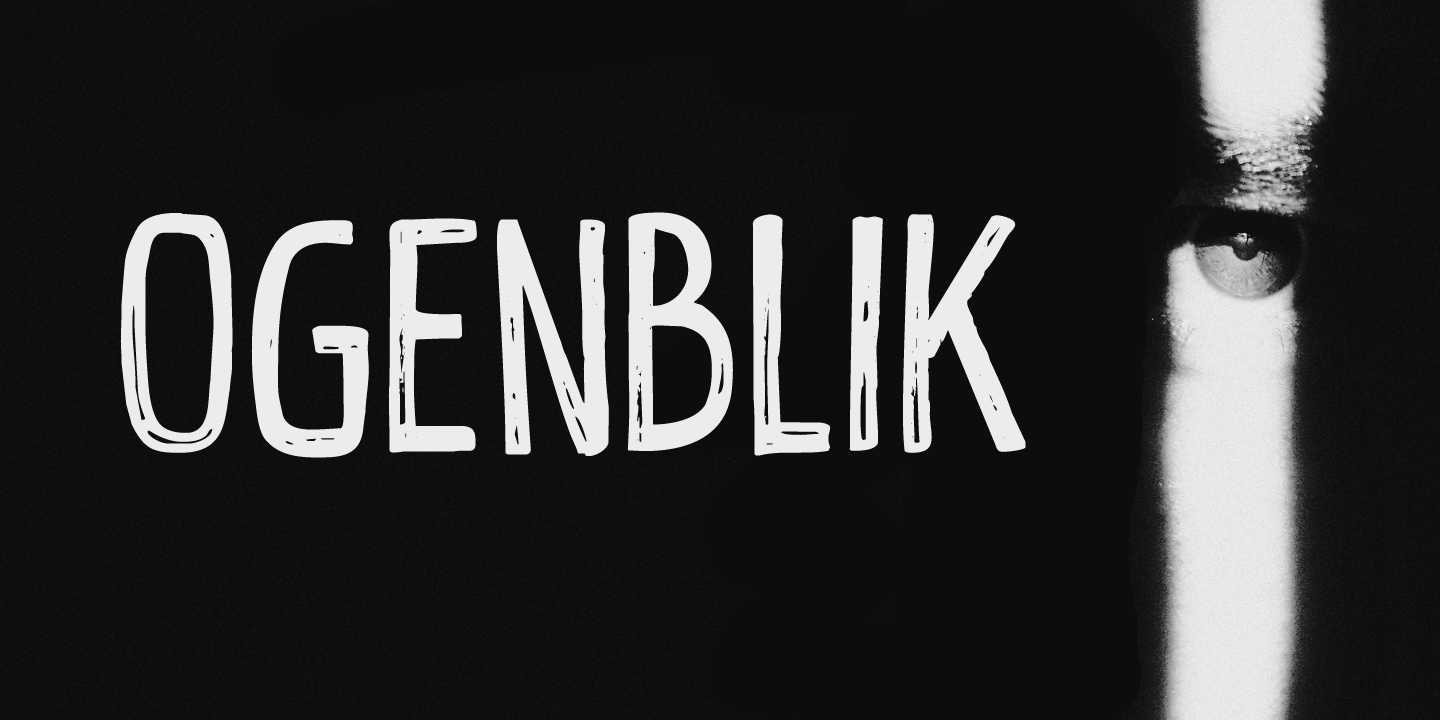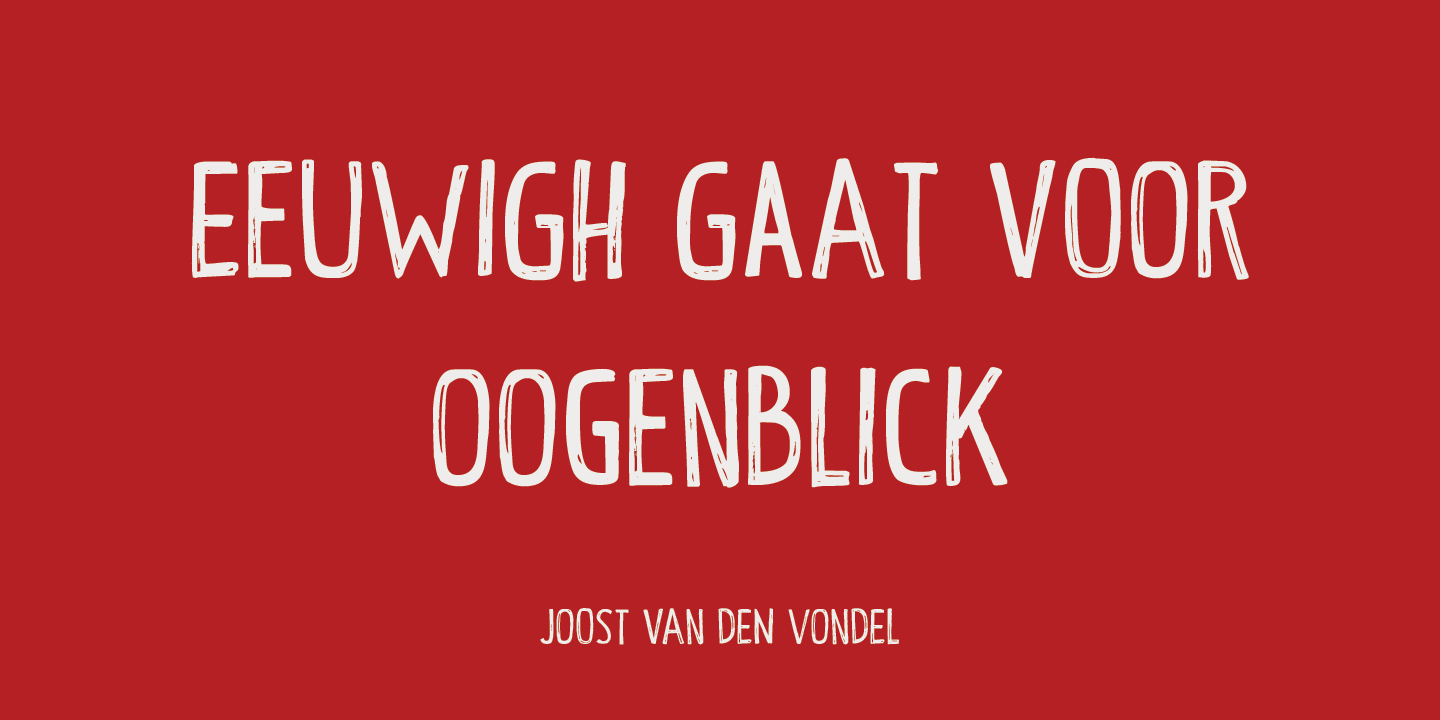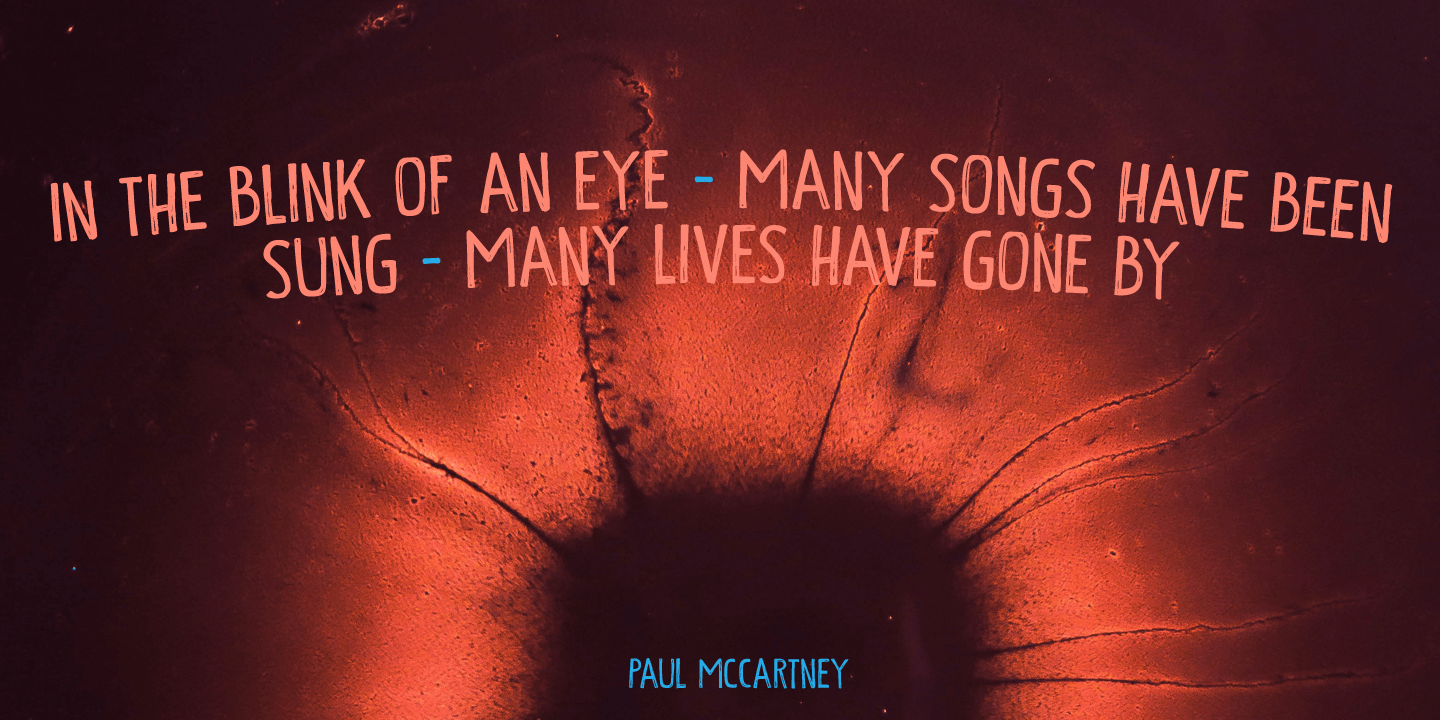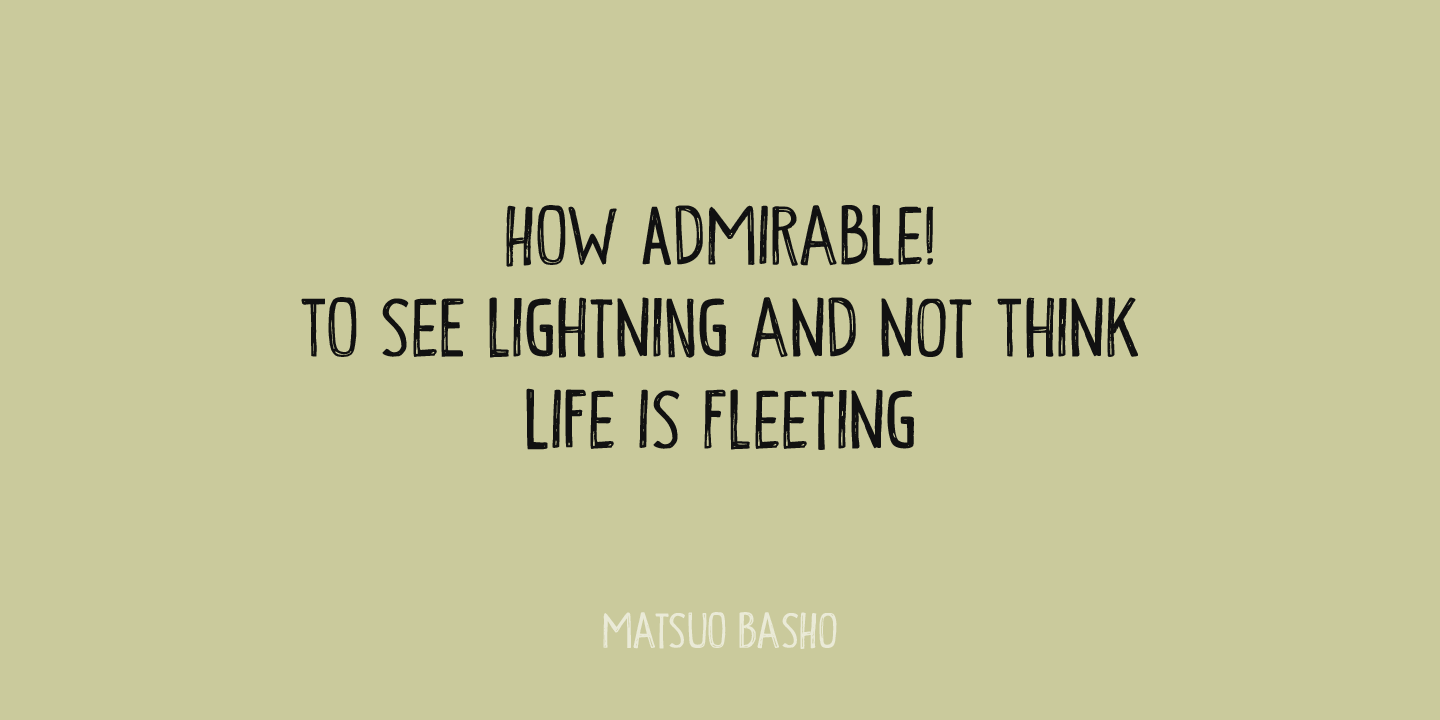
Ogenblik
The other day, I was thinking how time flies and how my kids grow up so fast. In the blink of an eye, they had turned from babies into almost-teenagers. Ogenblik, in Dutch, means just that: ?in the blink of an eye?, ?lightning fast?, or ?for a brief moment?. It's similar to the German ?Augenblick?, which means exactly the same.
Ogenblik was made with the same dried out marker pen that helped me create my font Castlerigg. I guess it had more than one extra font in it!
Ogenblik is a bit of a grungy, yet quite legible and neat font. Comes with multilingual support.
Ogenblik by Hanoded